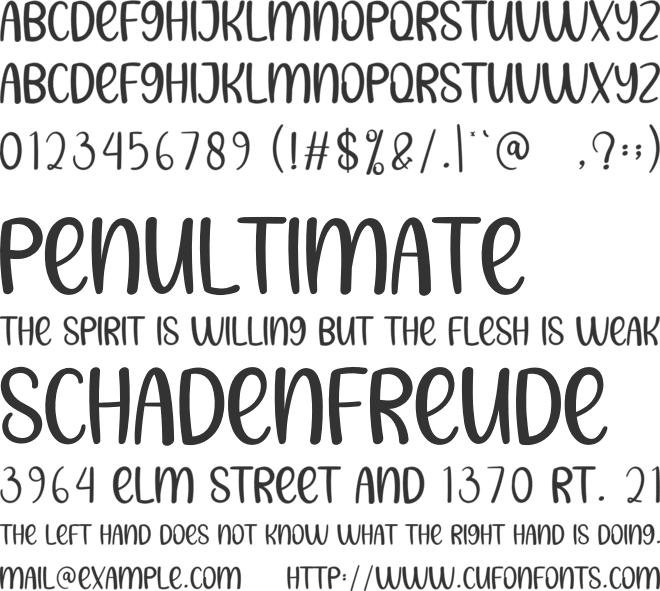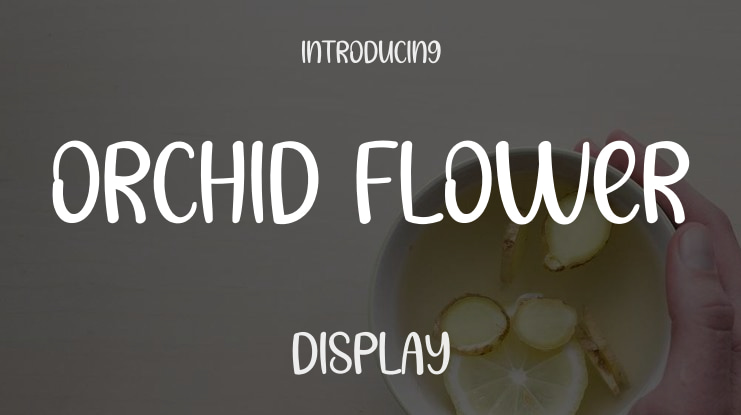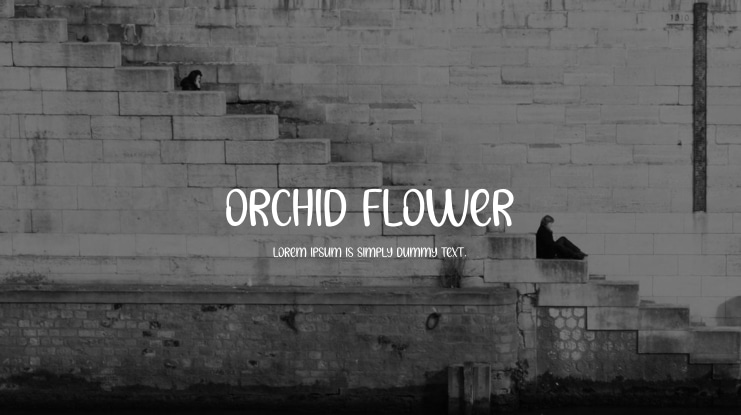
Orchid Flower Font
We offer special creative products to enhance your experience. Our latest collection of stylish fonts is perfect for various purposes such as wall displays, wedding invitations, social media logos, advertisements, packaging, labels, photography, and more. If you need tasteful handwriting for any project, our products are the perfect choice.